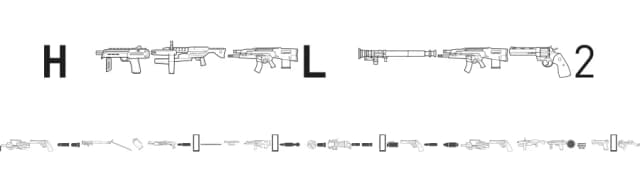
About HL2MP Font
HL2MP is a dingbat font designed by Valve Software. It includes 35 glyphs, a regular weight, and TTF (TrueType) format. HL2MP is free to download; check the license details on this page before commercial use. Dingbat fonts like HL2MP work best for icons, ornaments, bullet points, and decorative accents.
HL2MP Font is a versatile dingbats font that works for both headings and body text. Pair it with a contrasting sans-serif or serif font to add visual interest and a clear distinction between titles and body copy.
HL2MP Font
HL2MP Font is a dingbats typeface by Valve Software, ideal for logos, invitations, branding, and creative projects.